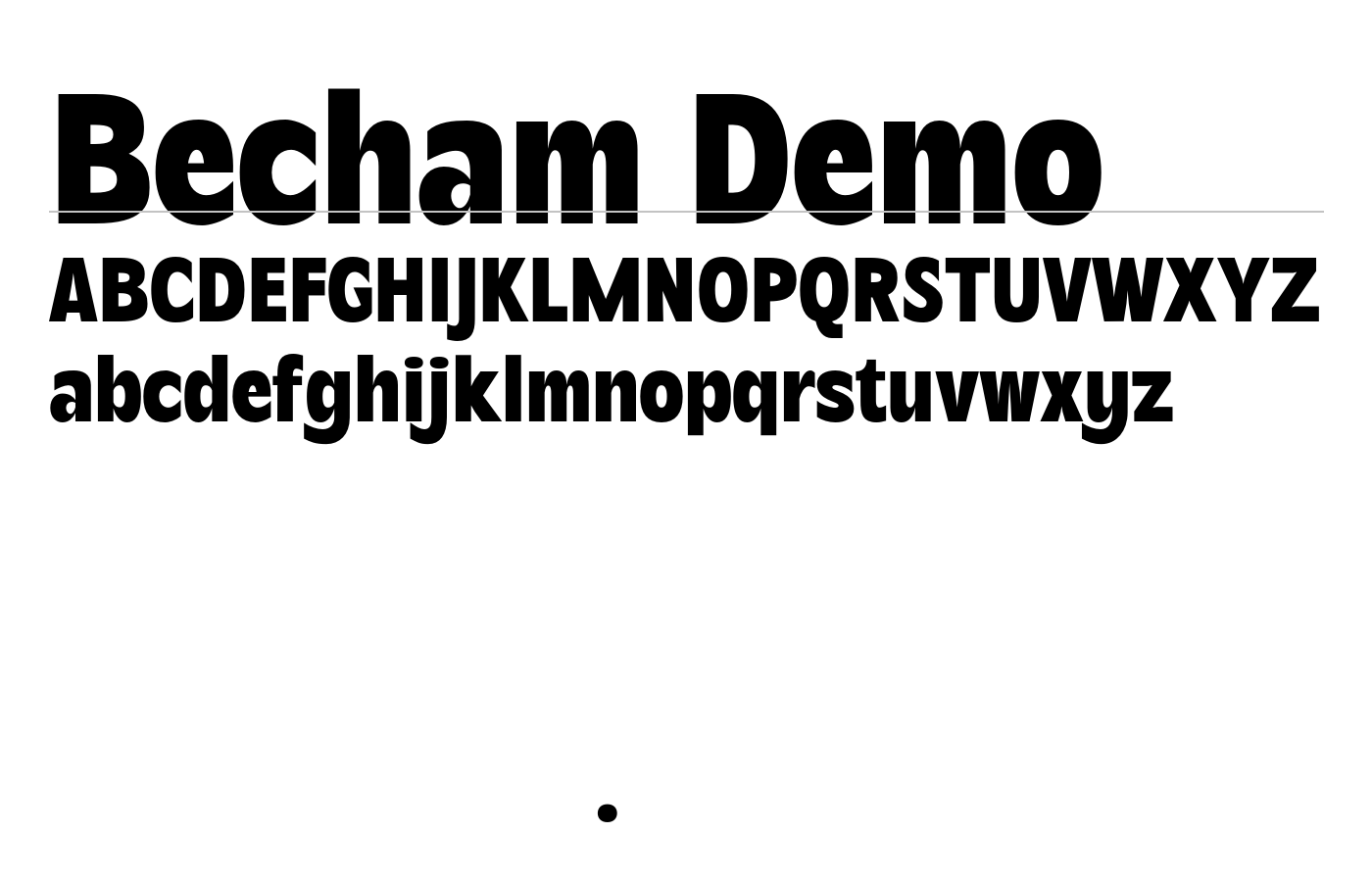
Becham Demo is a bold, narrow sans serif font with a strong presence and clean, geometric letterforms. Its tightly spaced characters and uniform stroke weight give it a modern and impactful feel, making it ideal for headlines, branding, and packaging where a confident, straightforward look is desired. This font works well in designs that need clarity and boldness without sacrificing style.
Becham Demo Font